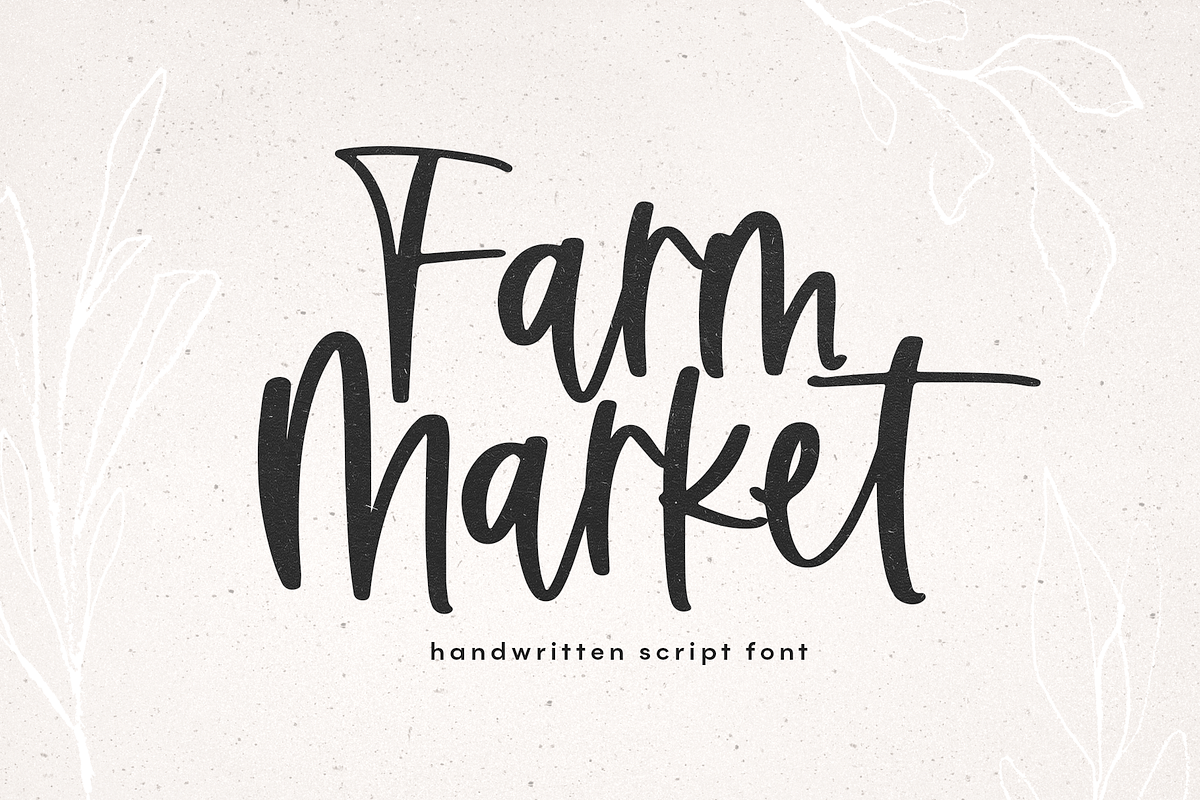
Farm Market | Farmhouse Script Font Free Download
Please note, you must purchase this font for commercial use. However, you can easily download Farm Market | Farmhouse Script Font Free Download for personal use and testing purposes. Farm Market | Farmhouse Script Font is a charming and rustic handwritten script typeface, designed to evoke a warm, farmhouse-inspired aesthetic. Perfect for branding, product labels, invitations, social media graphics, and more, this font brings a cozy, down-to-earth vibe to your designs. Its flowing, organic letterforms add a personal, hand-crafted feel, making it ideal for projects that celebrate country living or vintage styles. Download Farm Market | Farmhouse Script Font Free Download today and explore its potential before opting for a commercial license.